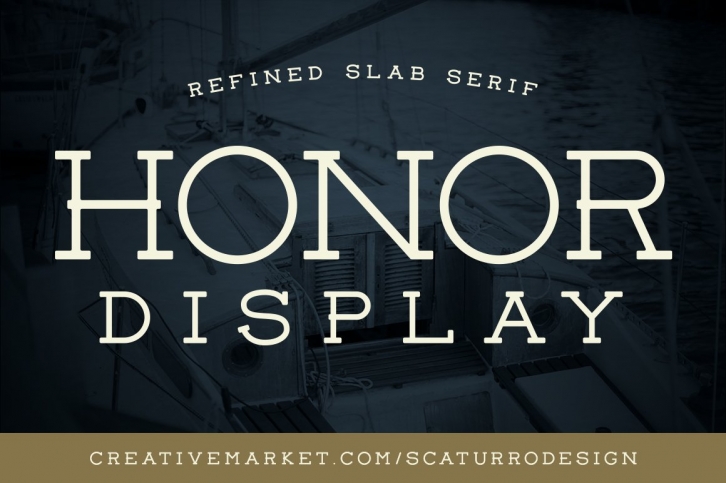
Honor Display is a new refined slab serif typeface from Scaturro Design, LLC that brings elegance, strength, and structure to any project. Bold geometric shapes and slightly rounded serifs make this the perfect font for a vintage feel with modern appeal.